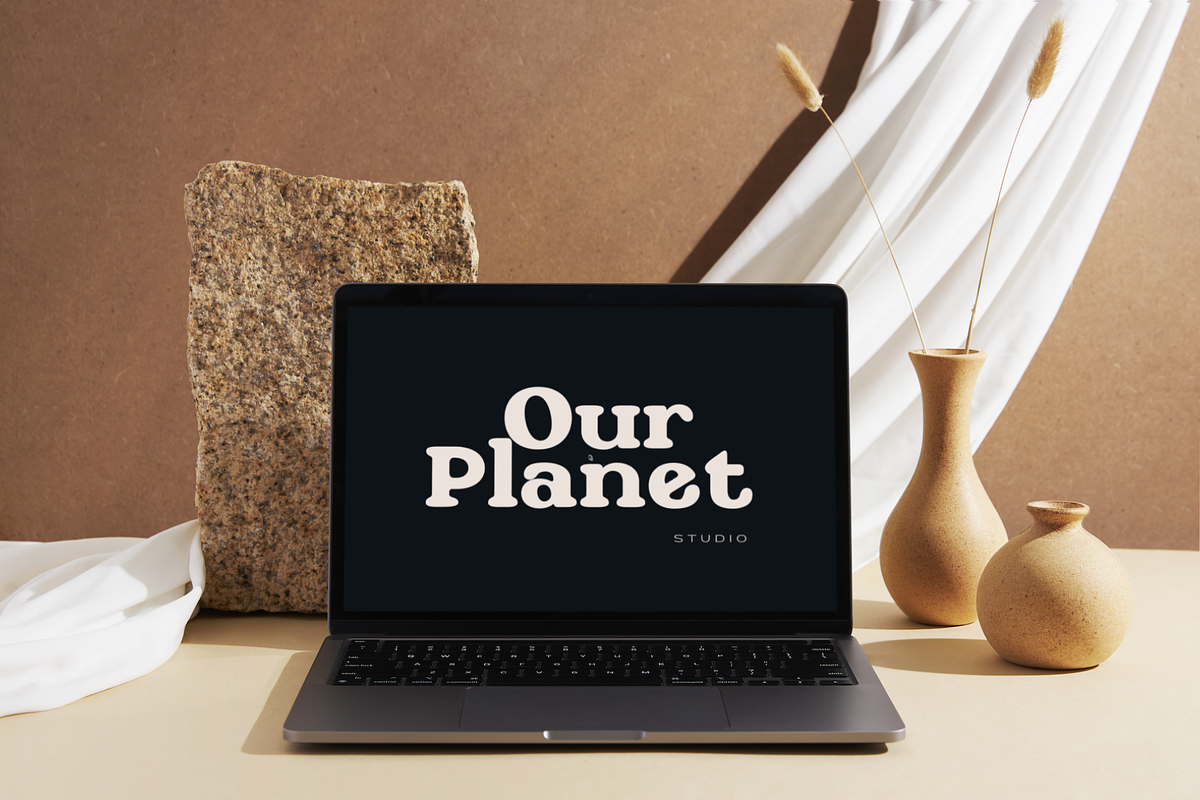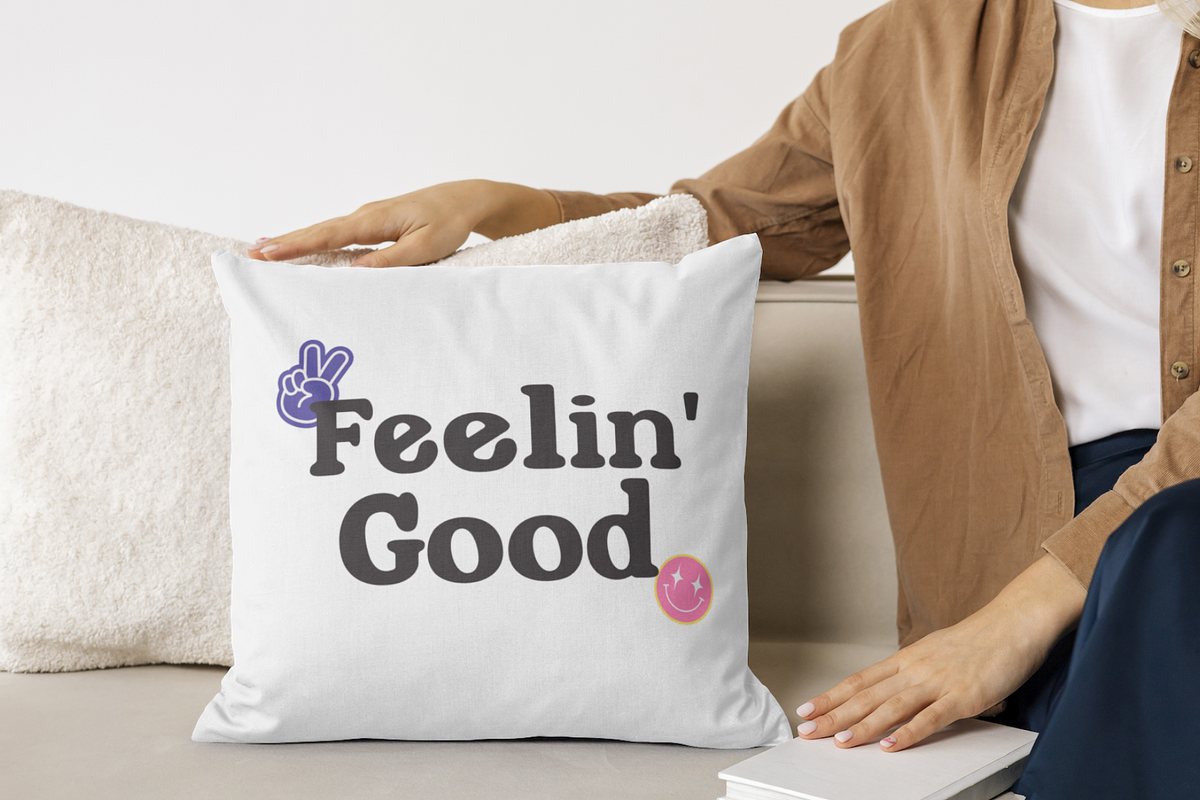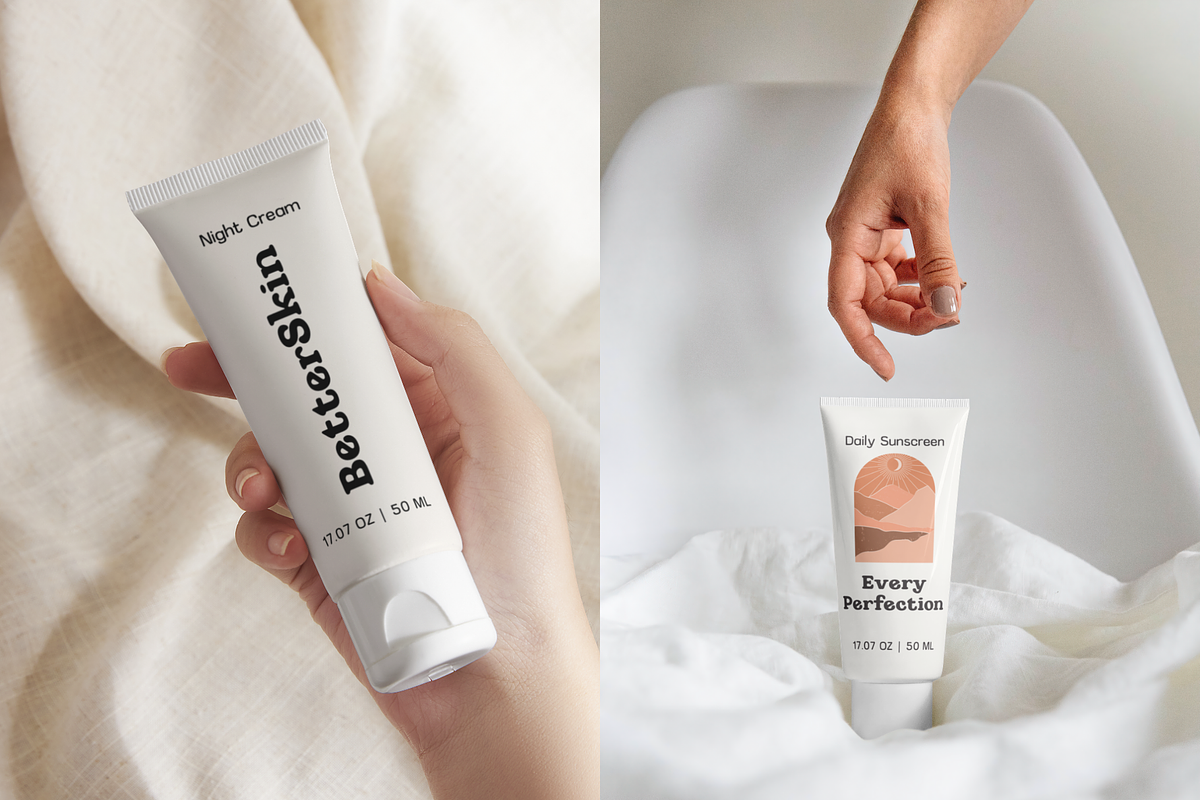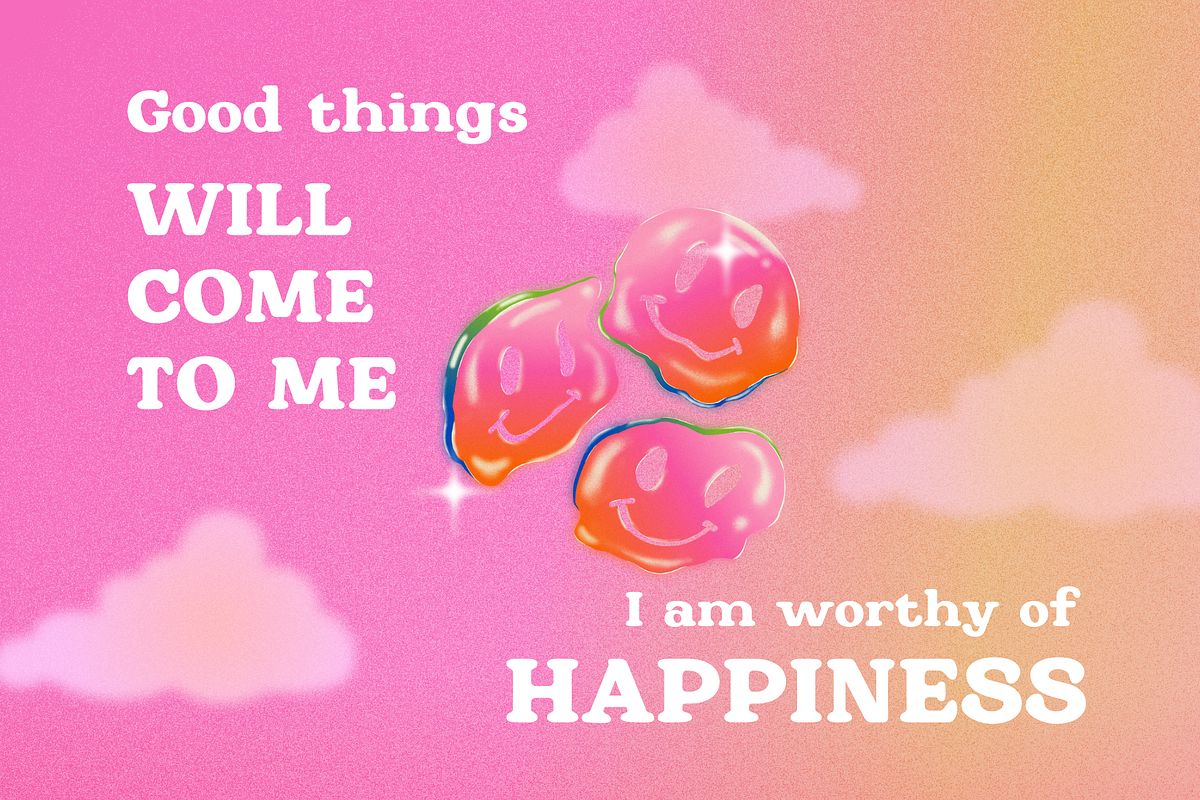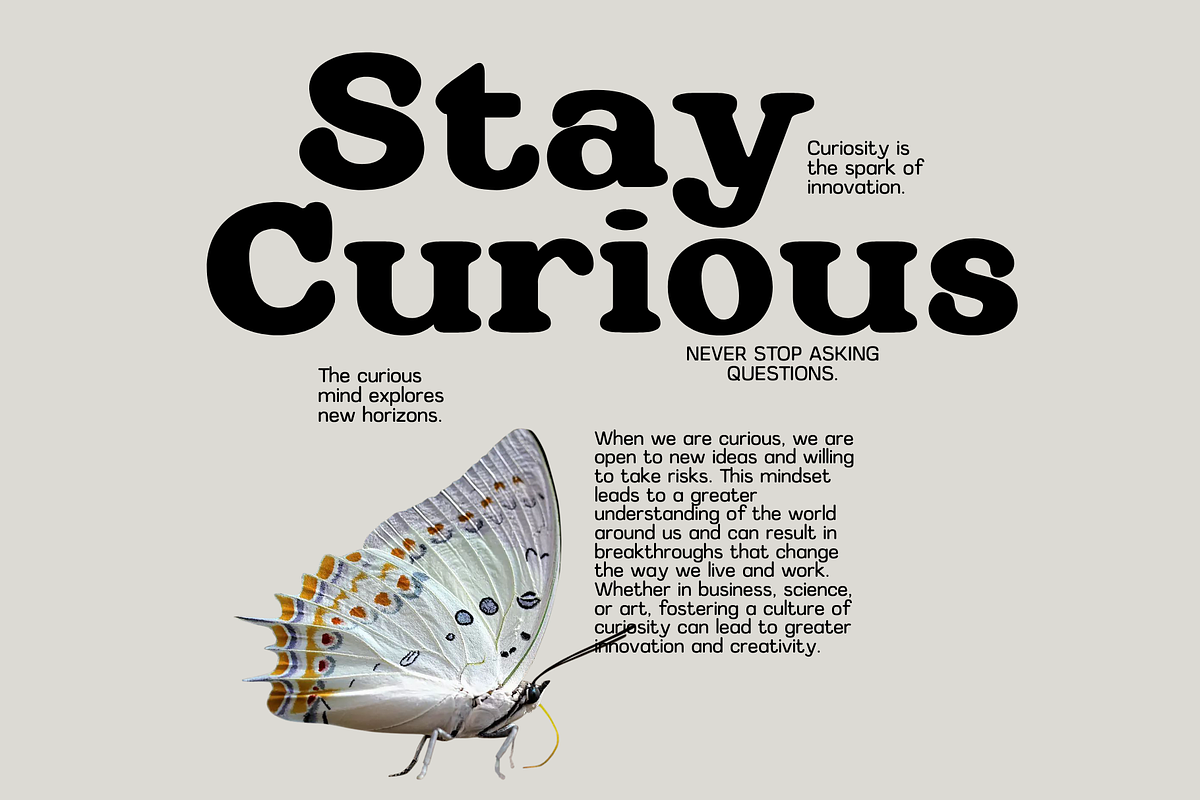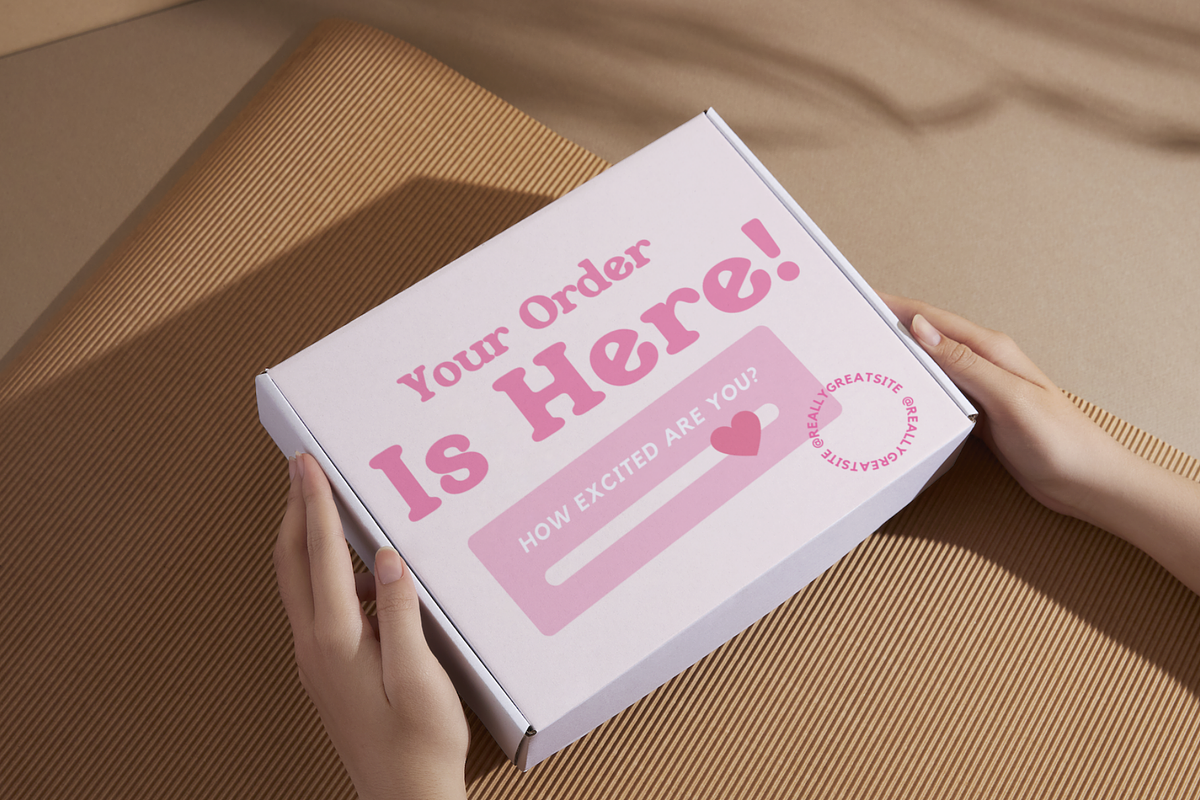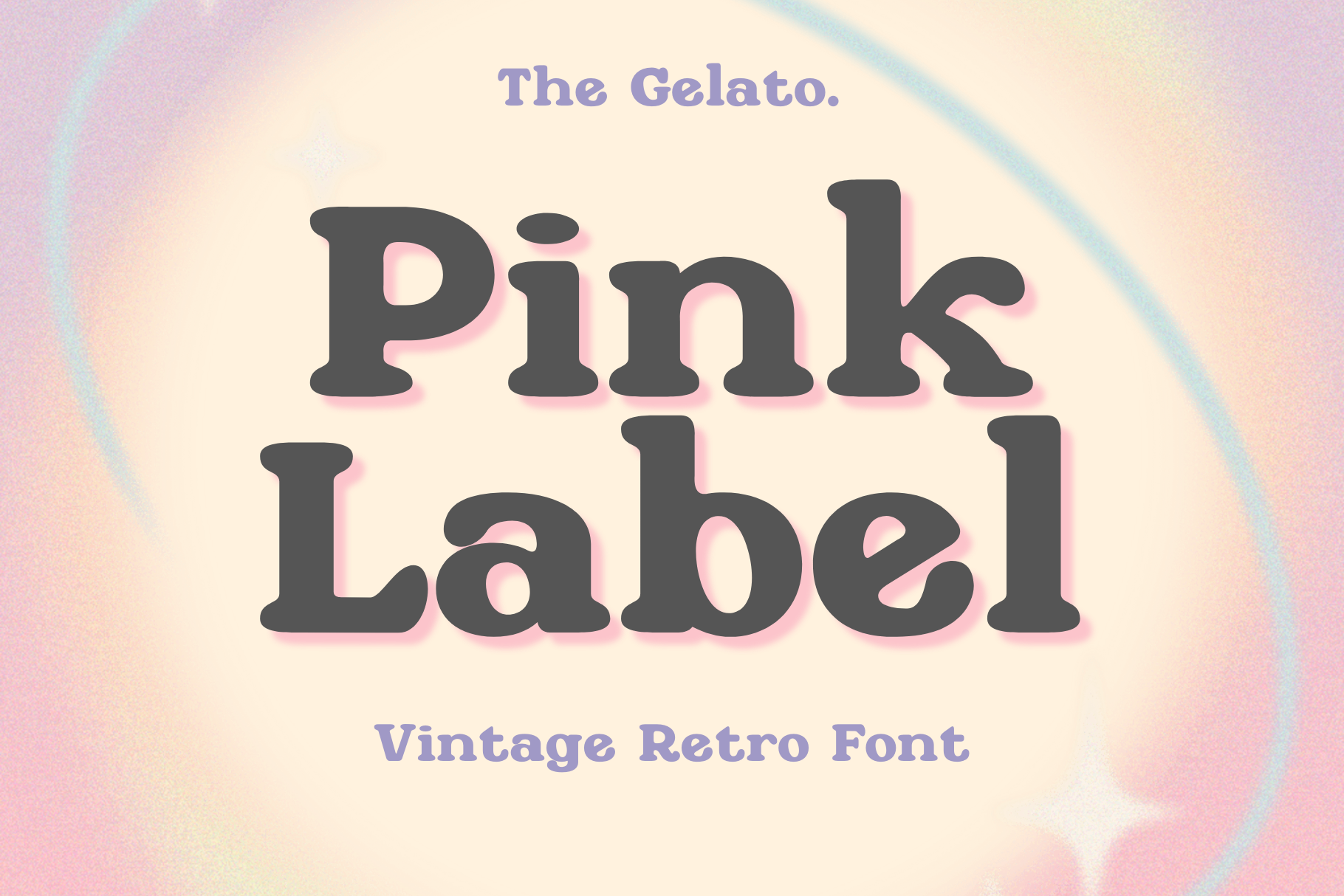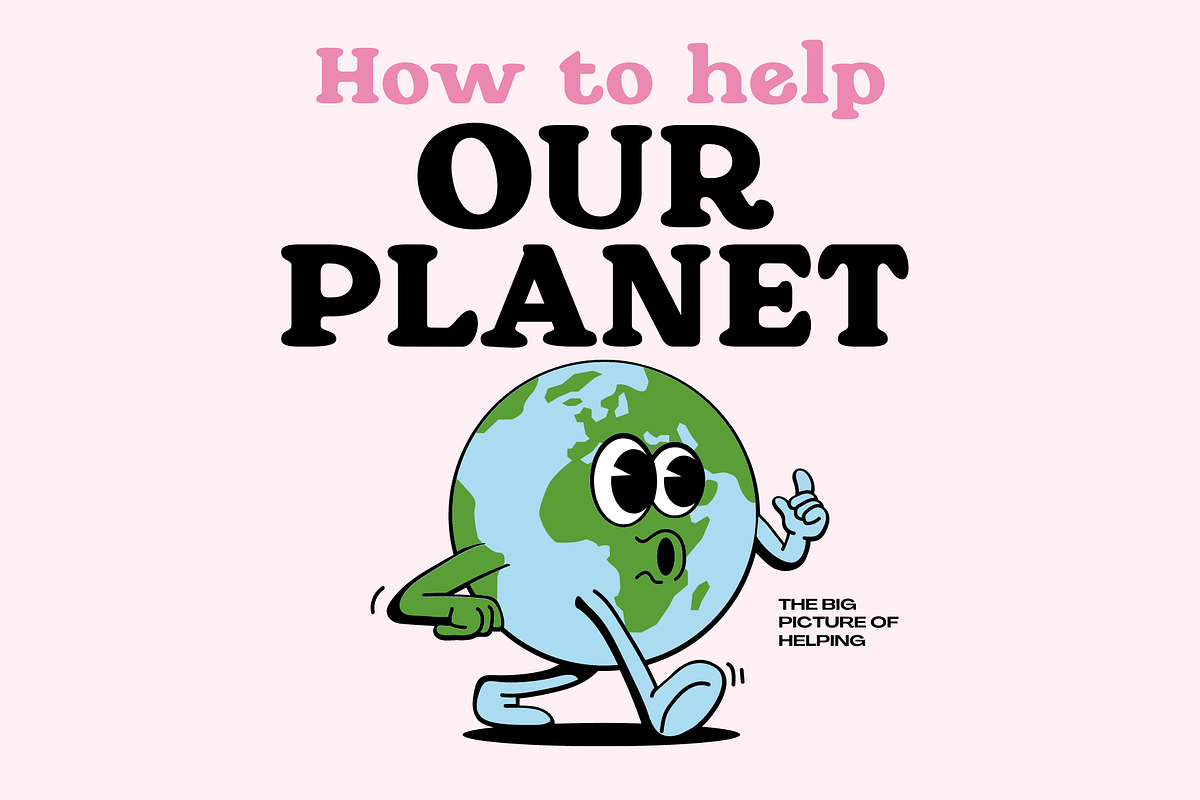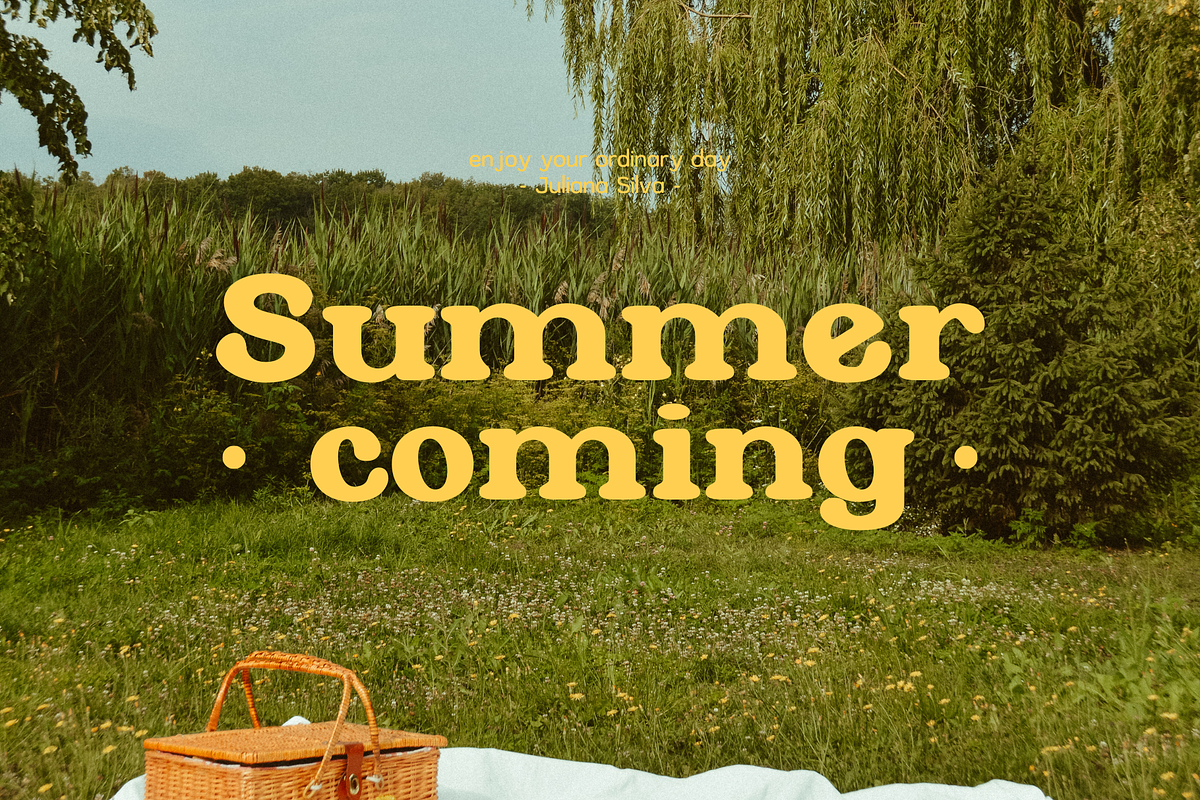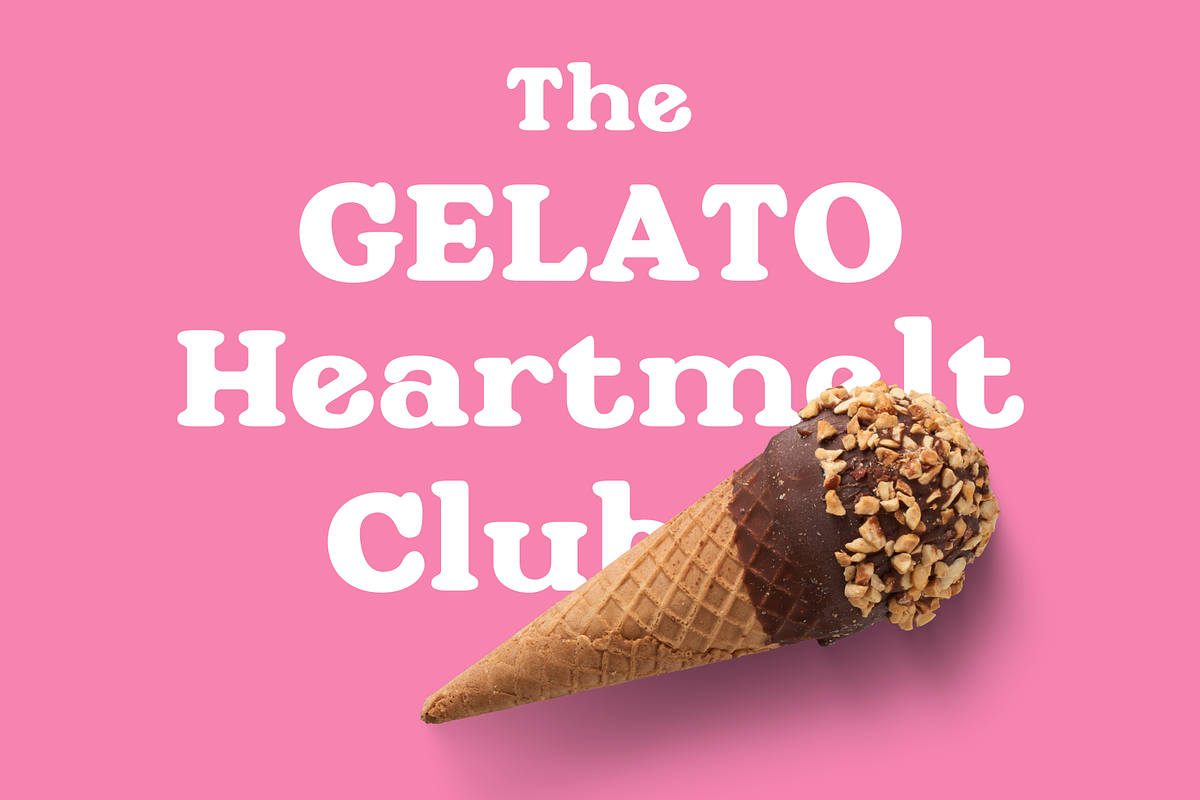
Pink Label: Y2K Groovy Retro Font
The Pink Label Font is a Vintage Retro Font that can be used as a Bold Bubble Font, Groovy 80S Font, Modern Retro Font, Hippie Font, Procreate Y2K Font, Boho Font, Canva Elegant font, Serif Font, Unique Branding Font, Stylish Urban Font, Magazine Font, Minimal Procreate Font, Typography Canva Font, Magazine Layout Font, EStreet Font, Classy Logo Font, Minimal Branding Font
Perfectly suitable for numerous use such as quotations, banners, logos, product packaging, titles, headers, Business cards, menu lists, and invitation cards!